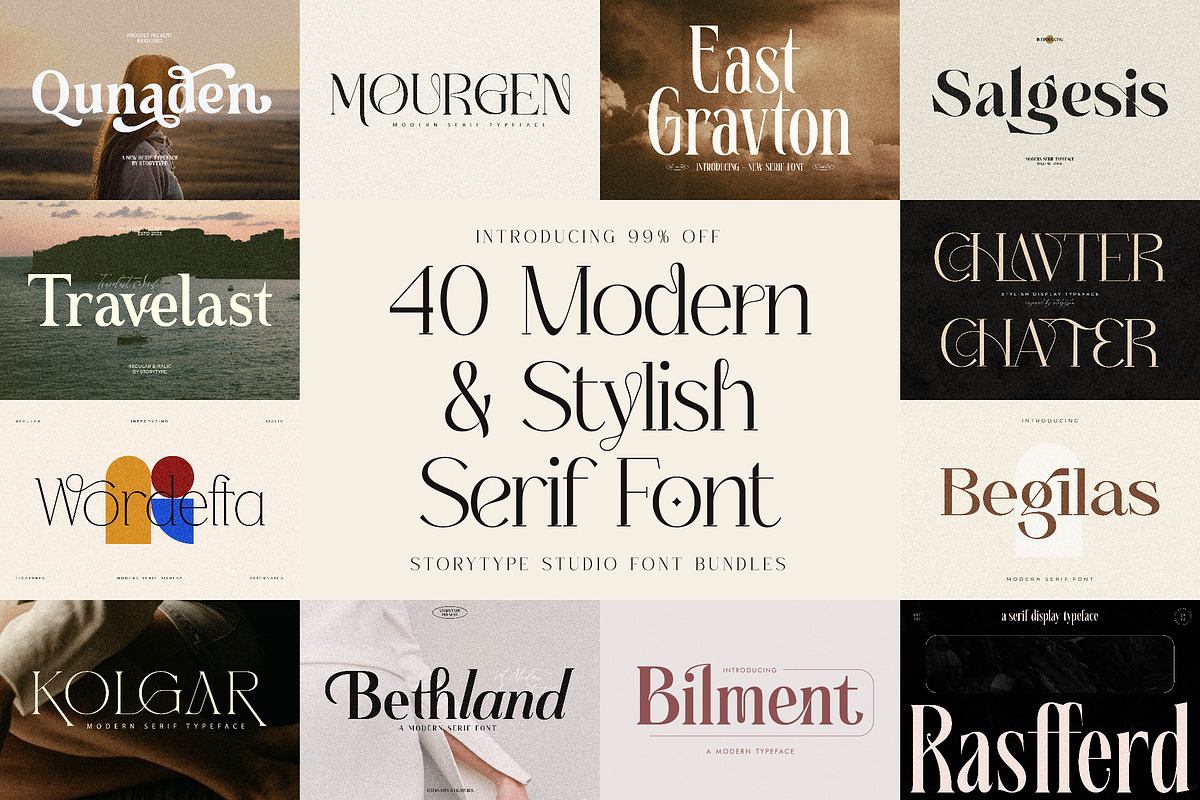
Modern & Stylish Serif Font Free Download
If you're seeking a font that strikes the perfect balance between classic sophistication and contemporary style, the Modern & Stylish Serif Font Free Download is your ideal match. With its clean lines, sharp serifs, and high-contrast strokes, this typeface is crafted for designers who crave elegance with an edge.
Perfect for editorial layouts, fashion branding, website headers, and high-end packaging, this font adds a polished and professional tone to any project. It’s bold yet refined—making it versatile enough to use in both minimalist and luxurious design concepts.